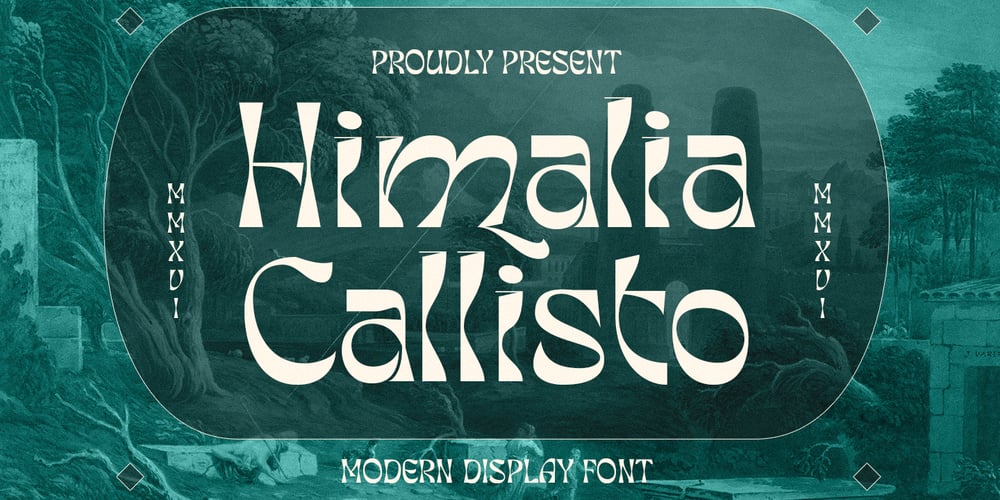
Himalia Callisto
Himalia Callisto font
Himalia Callisto Font Family was designed by Zahratul Laila and published by Dora Typefoundry. Himalia Callisto contains 2 styles and family package options. Introducing a cool unique display font named Himalia Callisto experimental typeface Embracing the classic era combined with a modern twist. ready to logos, titles, branding, magazines, album covers, book covers, films, clothing designs, quotes, invitations, flyers, posters, greeting cards, product packaging, printed quotes for any project you can think of.Himalia Callisto is equipped with uppercase, lowercase, numbers and full punctuation + Multi language support and PUA-encode. To activate the OpenType Stylistic alternative, you need a program that supports OpenType features such as Adobe Illustrator CS, Adobe Indesign & CorelDraw X6-X7, Microsoft Word 2010 or a later version.Features:• Uppercase & Lowercase letters• Numbers & Punctuation• Characters with accents• Supports Multiple Languages This type of family has become a work of true love, making it as easy and enjoyable as possible.I really hope you enjoy it!I can’t wait to see what you do with Himalia Callisto! Feel free to use the #Dora Typefoundry tag and # Himalia Callisto font to show what you’ve donevisit my Instagram : https://www.instagram.com/doratypefoundry/